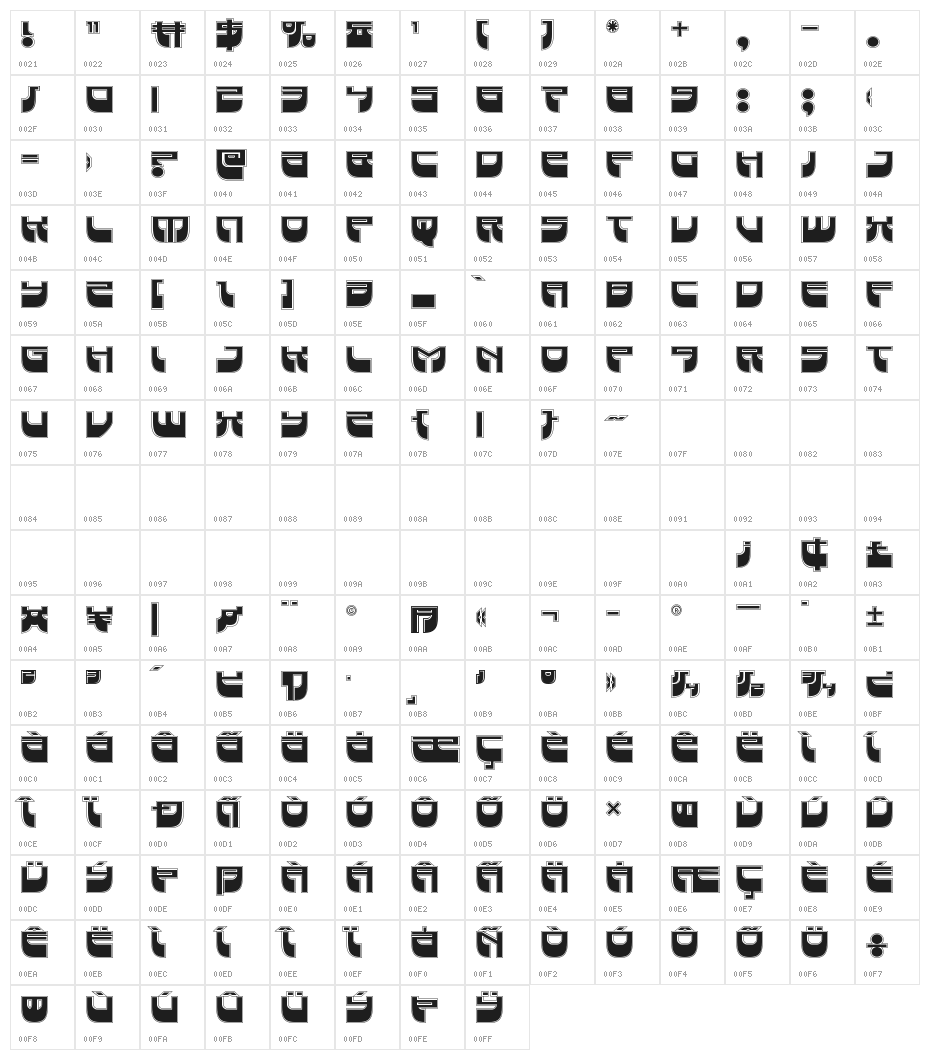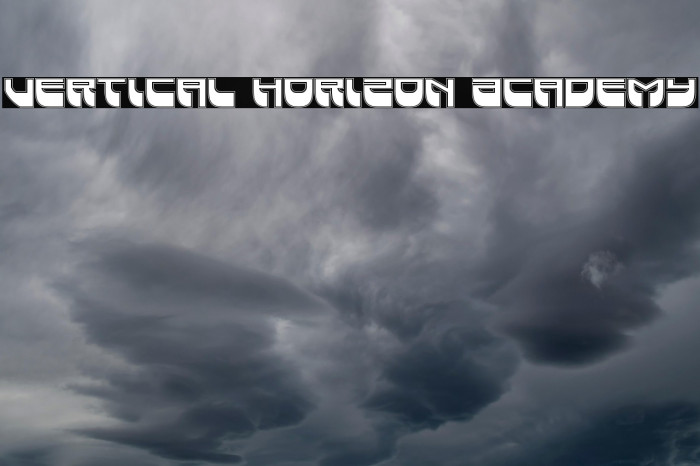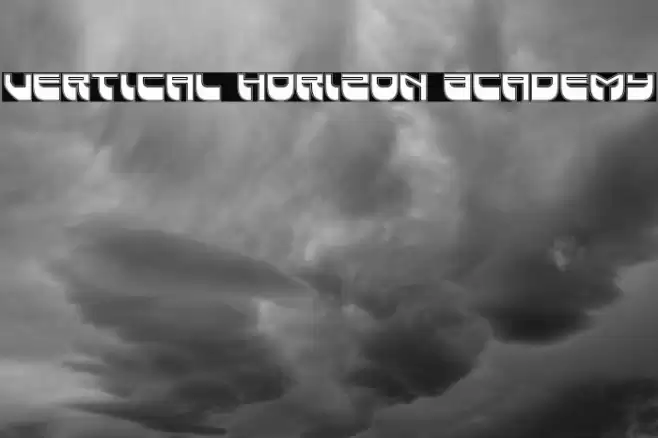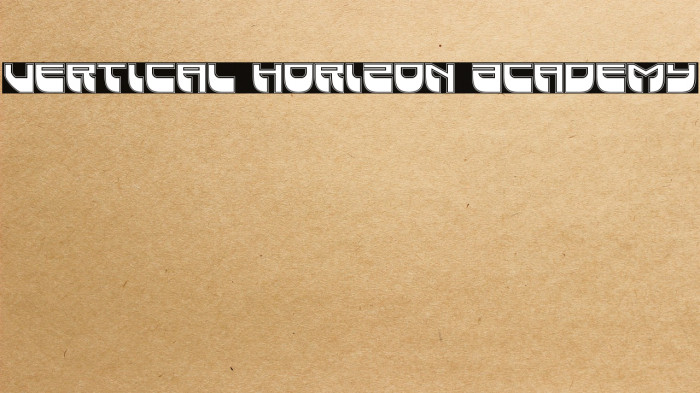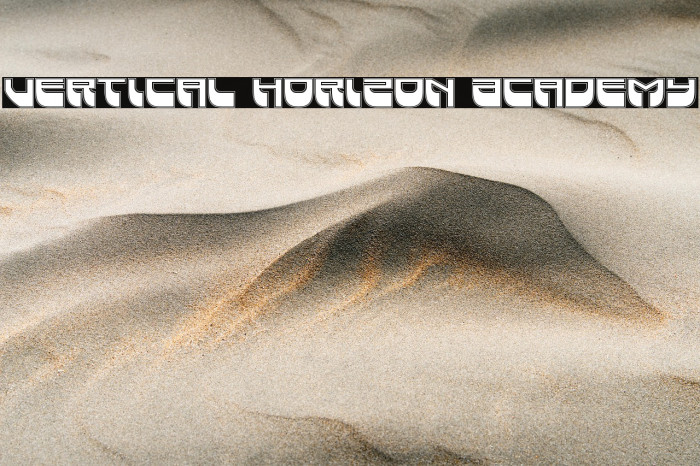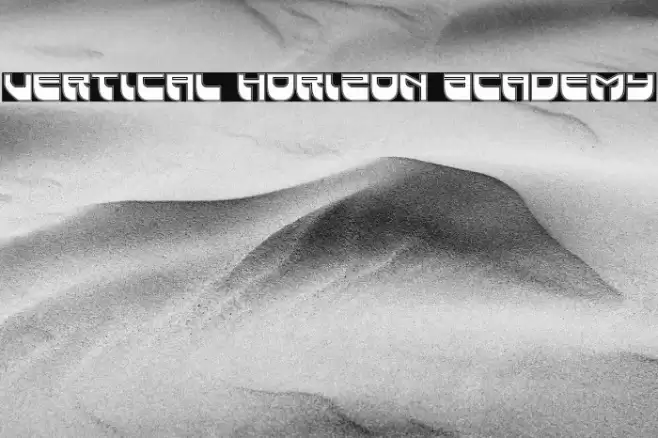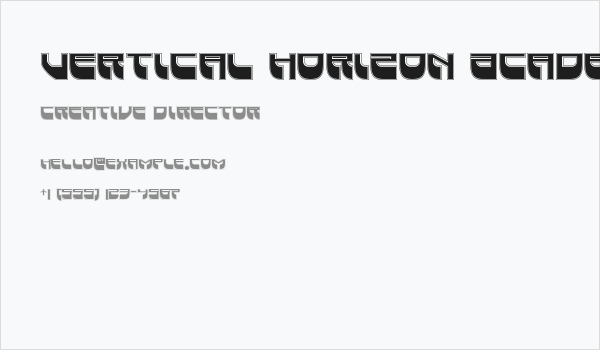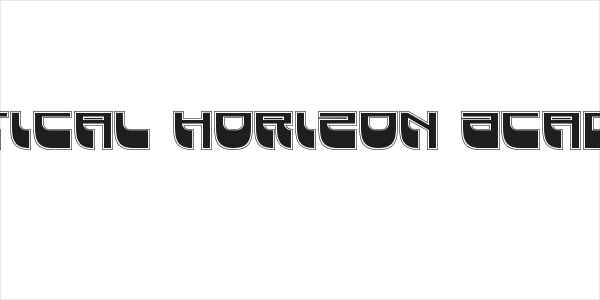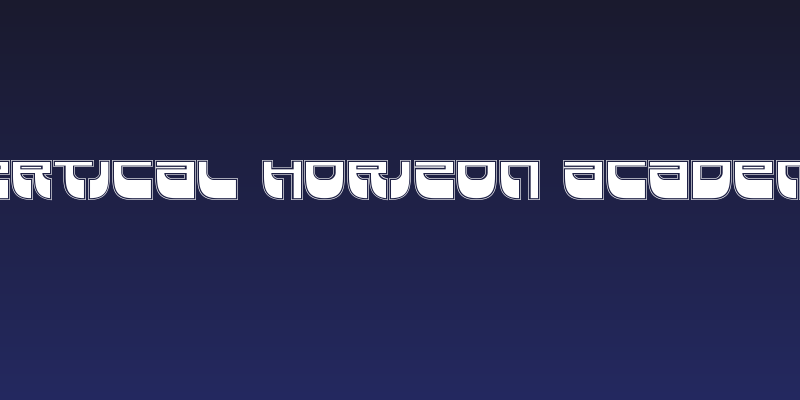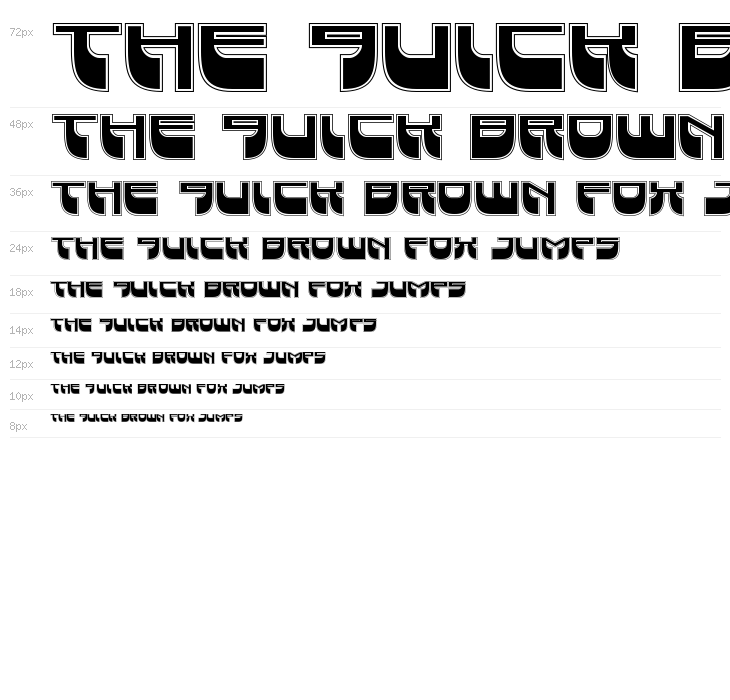
Vertical Horizon Academy Font
Vertical Horizon Academy Description
This font features a futuristic and bold design with a distinct geometric style. Each character is crafted with sharp angles and a blocky appearance, giving it a modern and tech-inspired look. The uppercase and lowercase letters maintain a consistent width, creating a uniform and cohesive visual impact. The numbers and special characters follow the same design principles, ensuring a seamless integration across all text elements. The font's unique style makes it stand out, ideal for projects that require a strong and contemporary aesthetic.
| Proposed Projects | Ideal for technology branding, sci-fi movie posters, video game titles, and modern digital interfaces. |